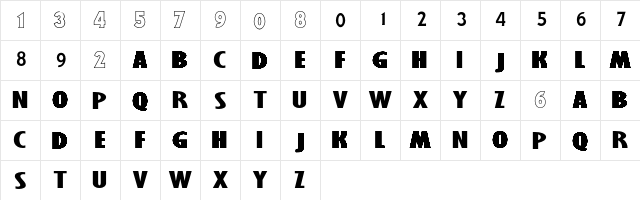
Russell-ORBNumbers Regular Font Preview
Russell-ORBNumbers Regular
Russell-ORBNumbers Regular Font Details
Design Context for Russell-ORBNumbers Typeface
Russell-ORBNumbers takes a measured approach to typography — its balanced proportions and neutral character make it a reliable workhorse for both digital and print work.